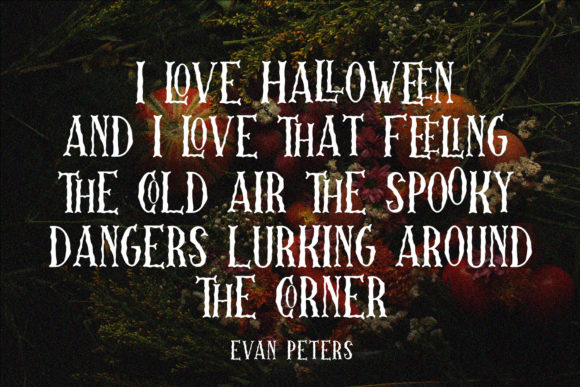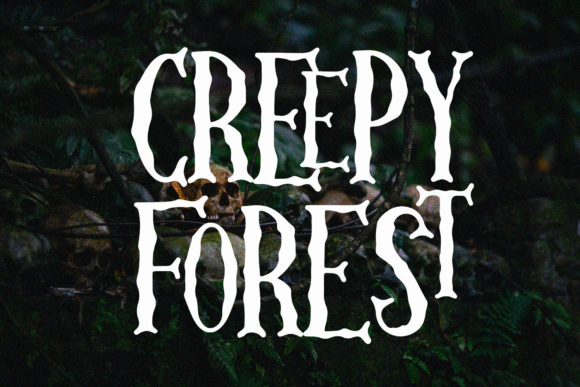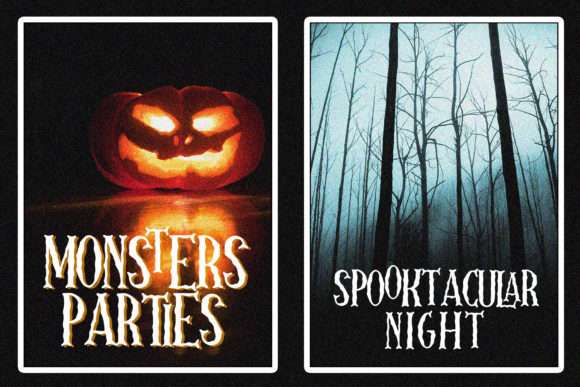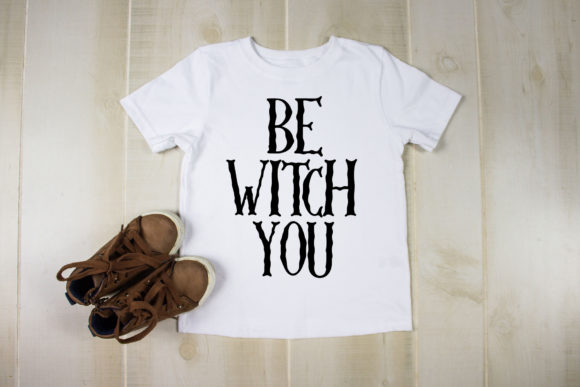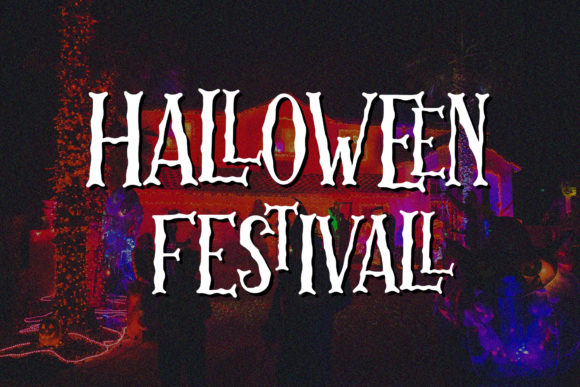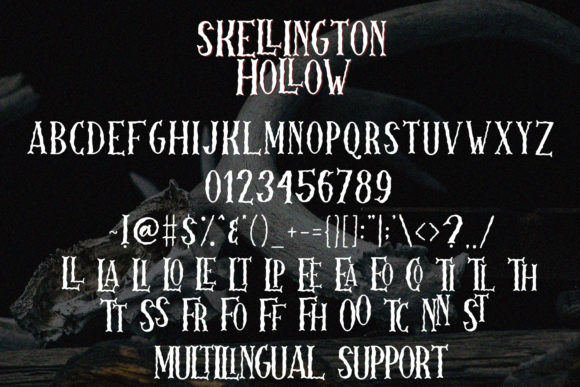
Introduction to Skellington Hollow Font
Do you remember the thrill of creating a Halloween-themed project, only to realize that your font selection was as dull as a cardboard tombstone? The spark in your creative project was extinguished by a lack of flair, leaving you to settle for a bland design. But what if I told you there’s a font that can bring your spooky visions to life?
Meet the Skellington Hollow Font, a high-quality display font that’s perfect for elevating any horror or ghost-themed project. With its transparent background and eerie feel, this font is sure to make your design stand out from the crowd. Whether you’re a seasoned designer or a creative enthusiast, the Skellington Hollow Font is a valuable resource that’s free to download and use in your next project.
Key Features of Skellington Hollow Font
- High-quality, hand-drawn design perfect for creative projects and unique design resources.
- Unique characteristics include intricate details, bold lines, and a touch of spooky charm, making it perfect for Halloween-themed designs and creative projects.
- Designed with a high level of detail, ensuring a crisp and clear appearance, even at large font sizes.
Honest Review: Skellington Hollow Font
As a designer, I’m always on the lookout for high-quality design resources to elevate my creative projects. Recently, I stumbled upon the Skellington Hollow Font, and I must say, it’s a great find.
One of the standout features of this font is its versatility. It’s perfect for both digital and print projects, making it a great addition to any designer’s toolkit. I’ve used it for everything from logos to social media graphics, and it always looks great.
Here are some of the things that work well with the Skellington Hollow Font:
- ✨ High-quality design with intricate details
- ✨ Great for projects that require a unique, creative touch
- ⚠️ May not be suitable for projects that require a transparent background, as the font can be quite bold
- ⚠️ Some users may find the font’s complexity overwhelming, but I think it’s part of its charm
Overall, I’m really impressed with the Skellington Hollow Font. It’s a great addition to any designer’s arsenal, and I highly recommend it for creative projects that require a unique touch.
Tips for Getting the Most Out of Skellington Hollow Font
To get the most out of Skellington Hollow Font, consider using it for creative projects such as invitations, posters, and social media graphics. You can also use the font in combination with other design resources, such as images and icons, to create a unique and eye-catching design.
- Invitations and party decorations
- Social media graphics and banners
- Wedding and event designs